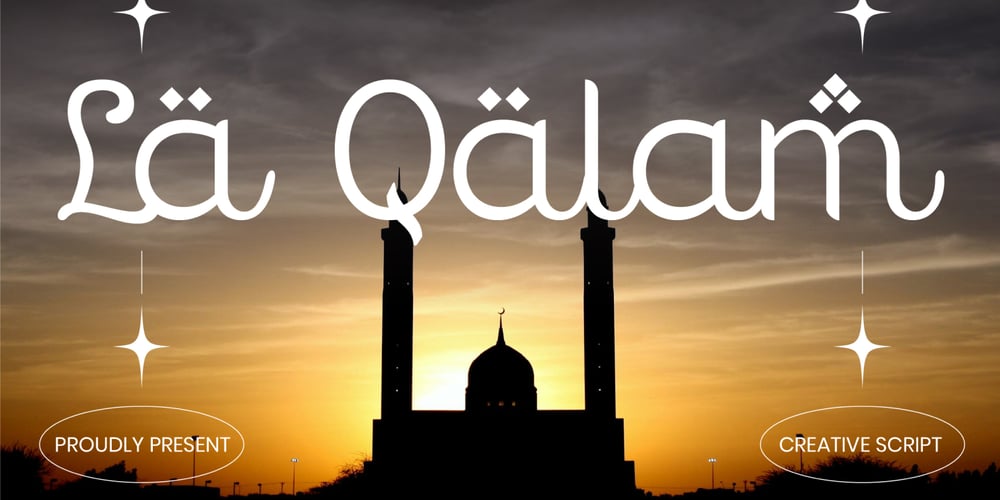
La Qalam
La Qalam font
La Qalam Font Family was designed by published by Vadova Std. La Qalam contains 1 styles and family package options. Elevate your designs with La Qalam Script Font, a modern font perfect for adding elegance and style to your projects. This font offers key features like OpenType format compatibility, uppercase and lowercase characters, plus numerals and punctuation, perfect for versatile and professional designs. Whether it’s for quotes, logotypes, magazine headers or more.